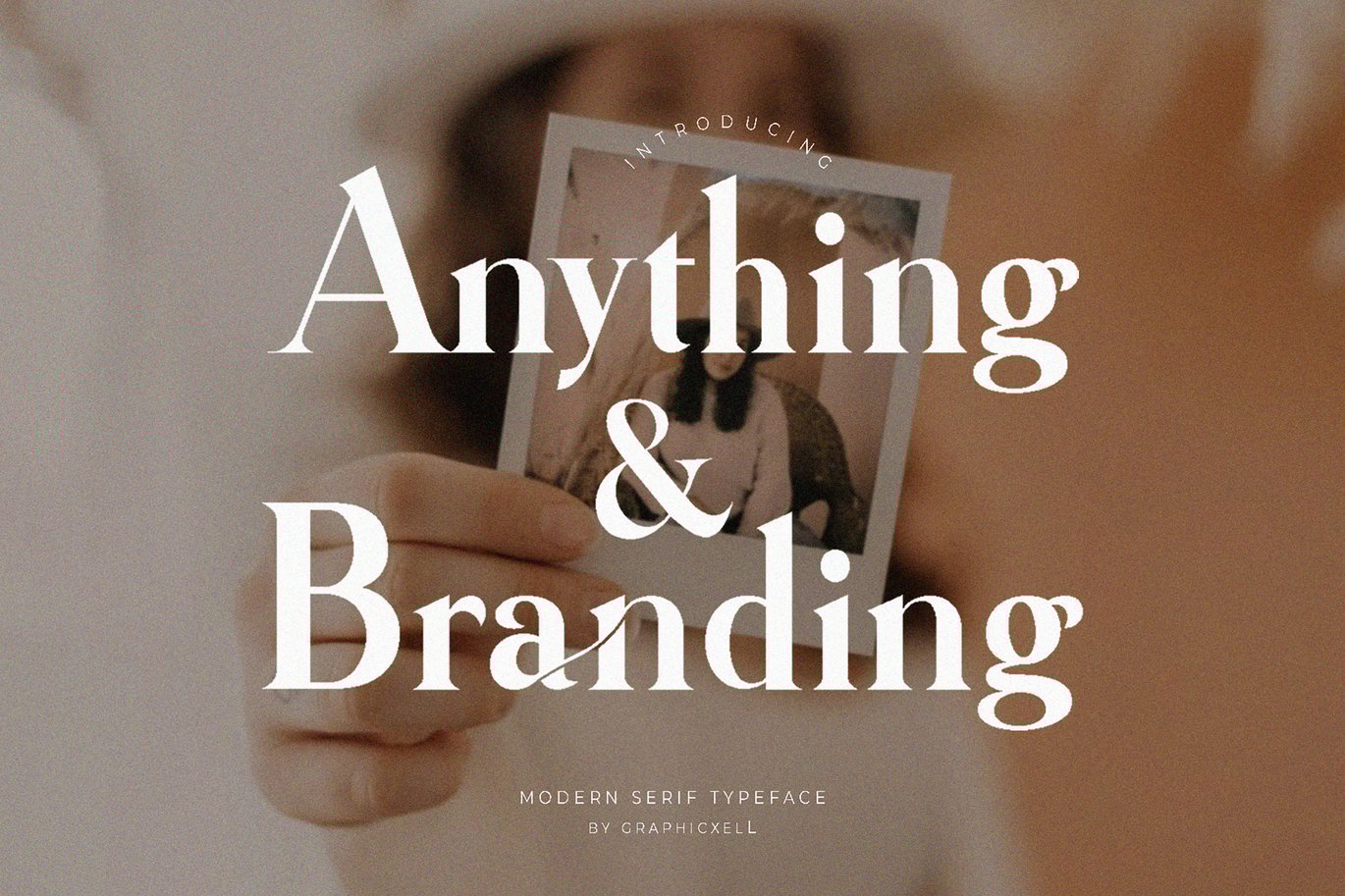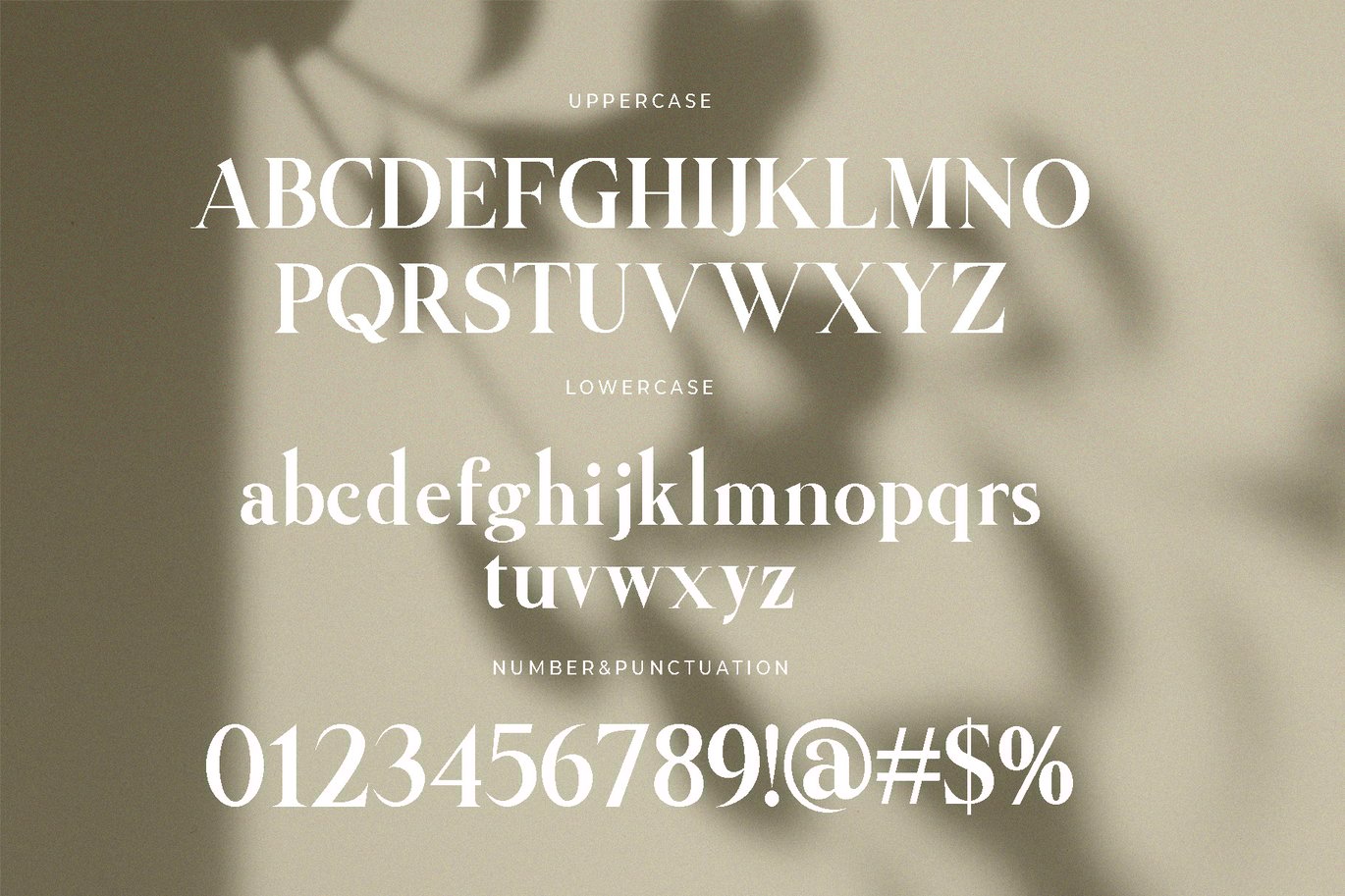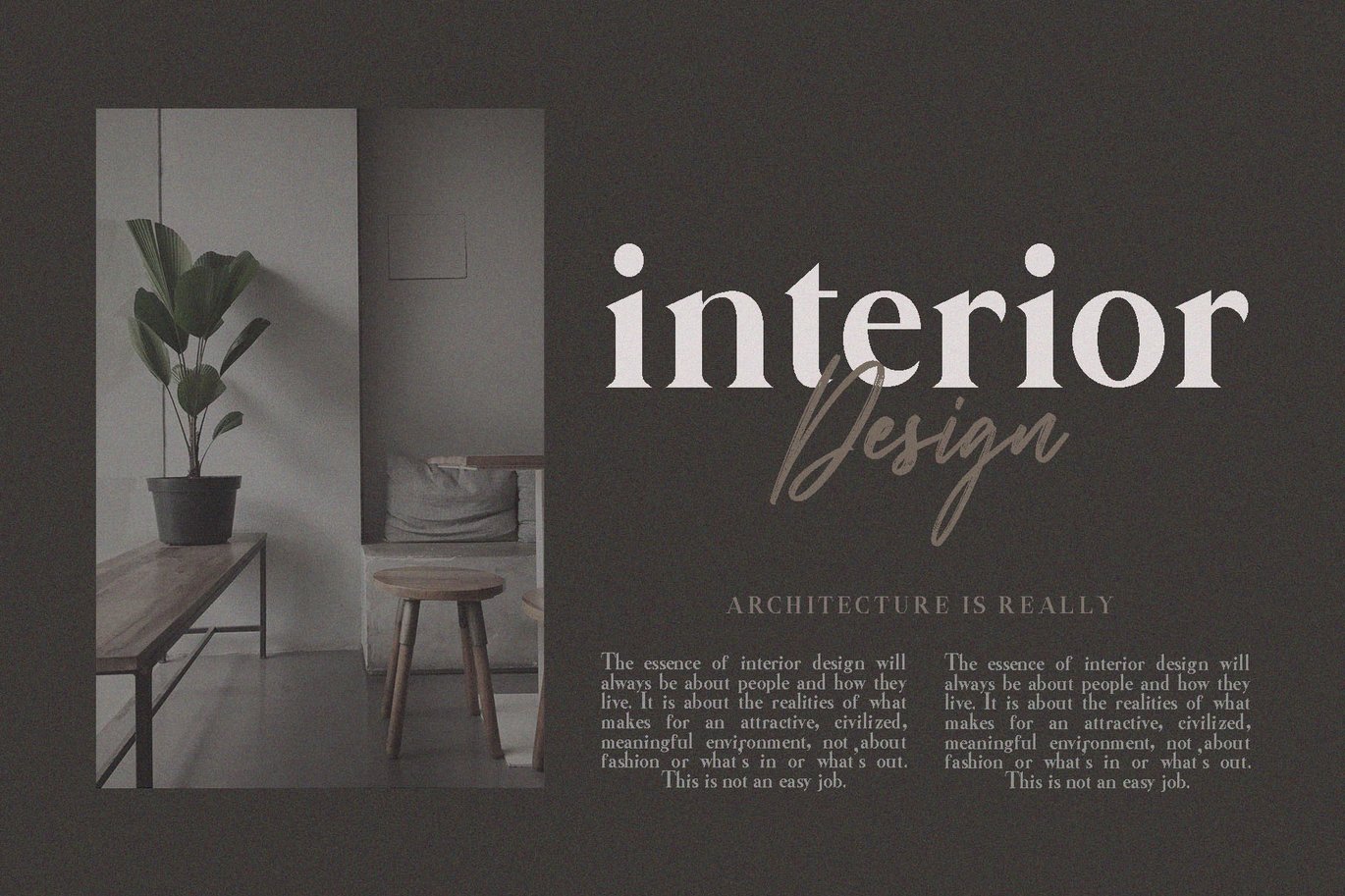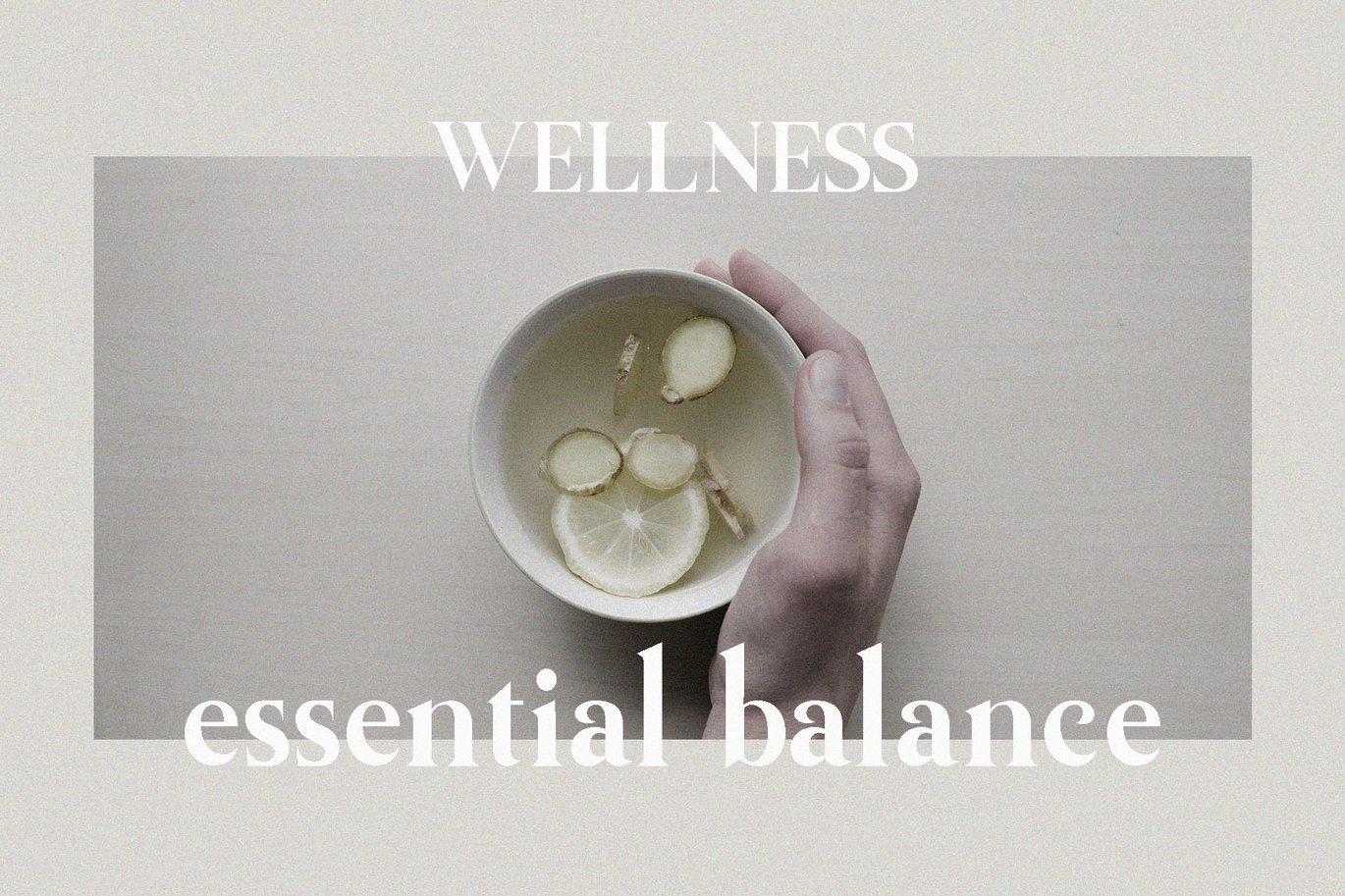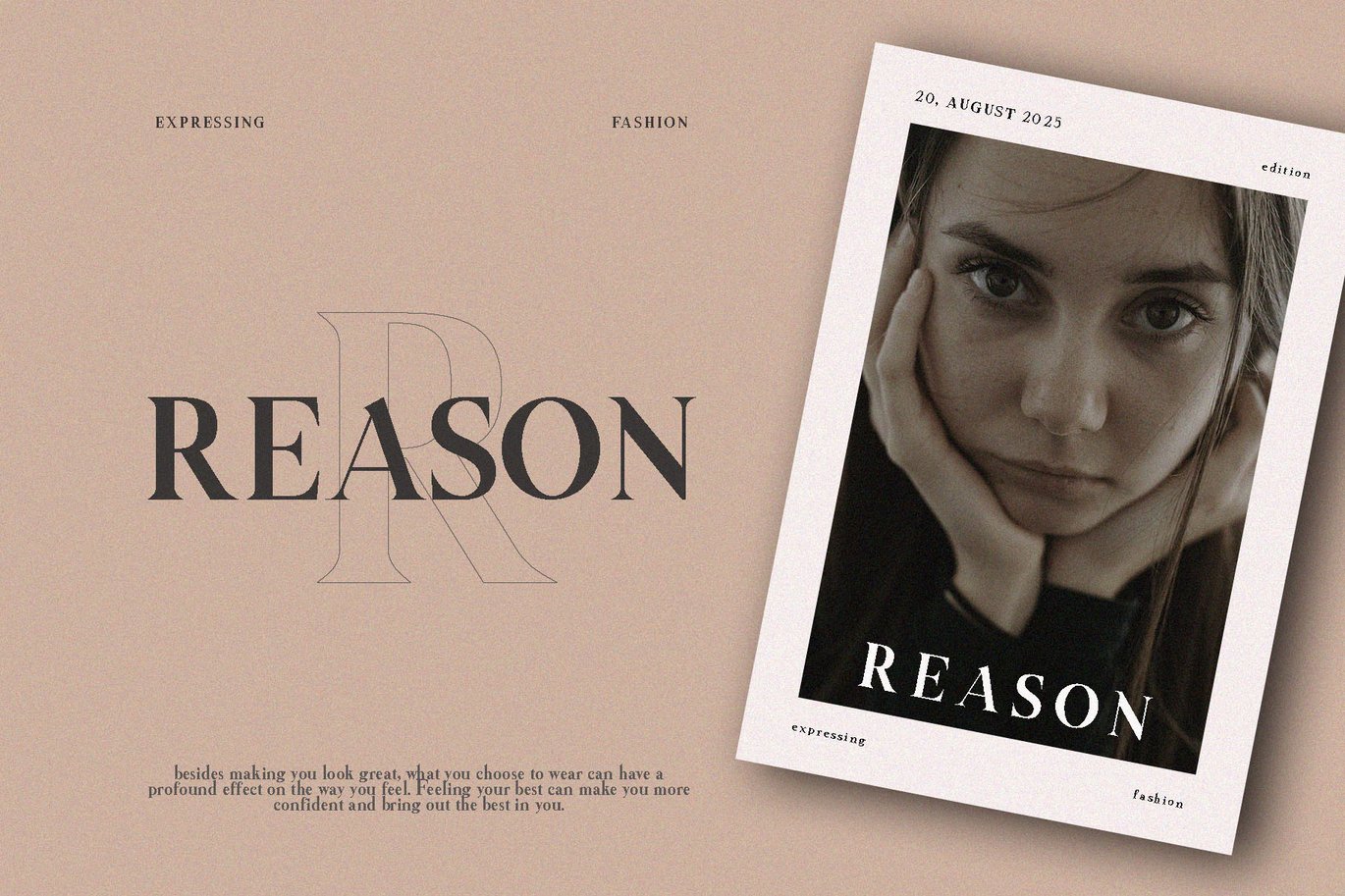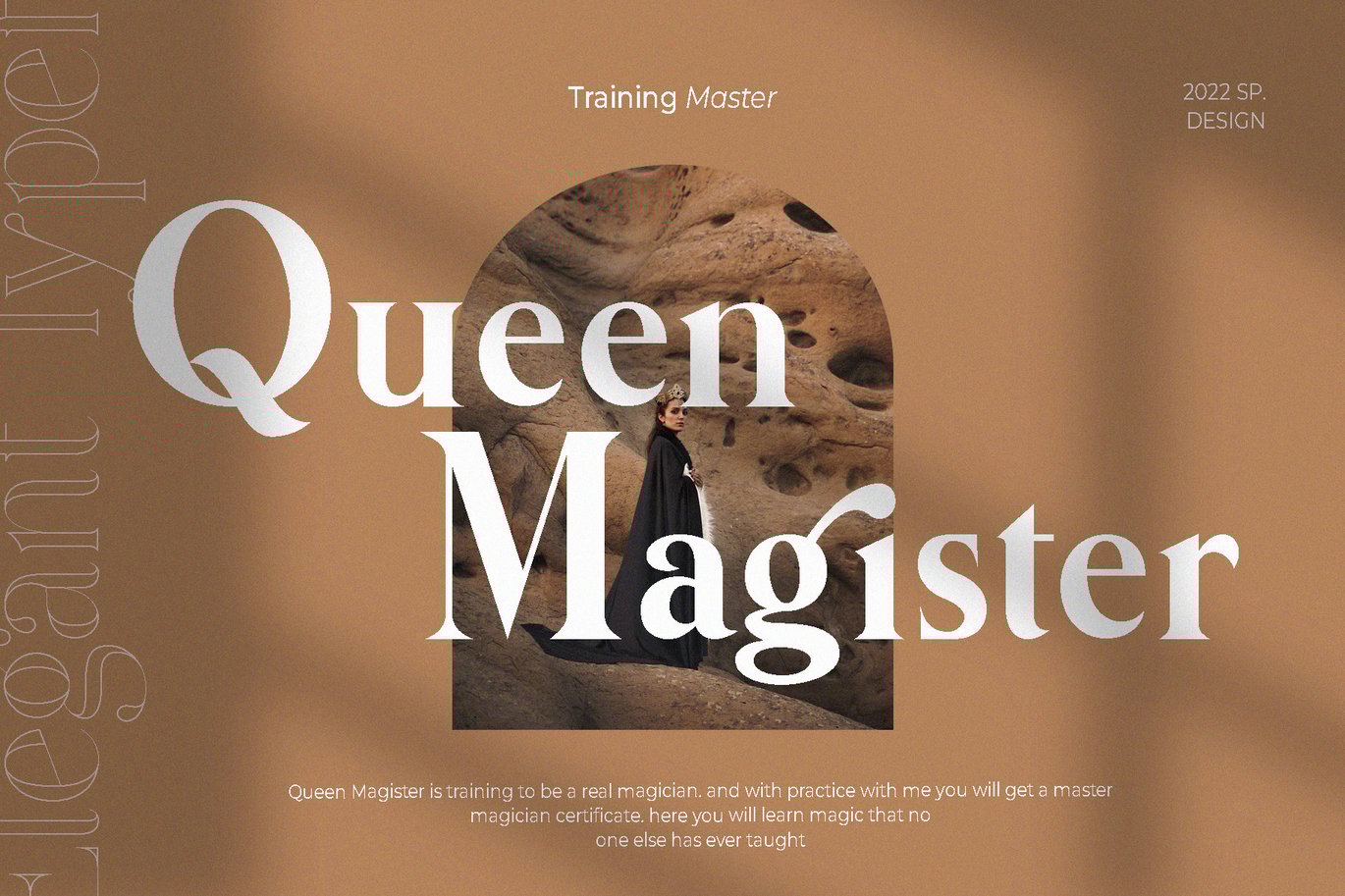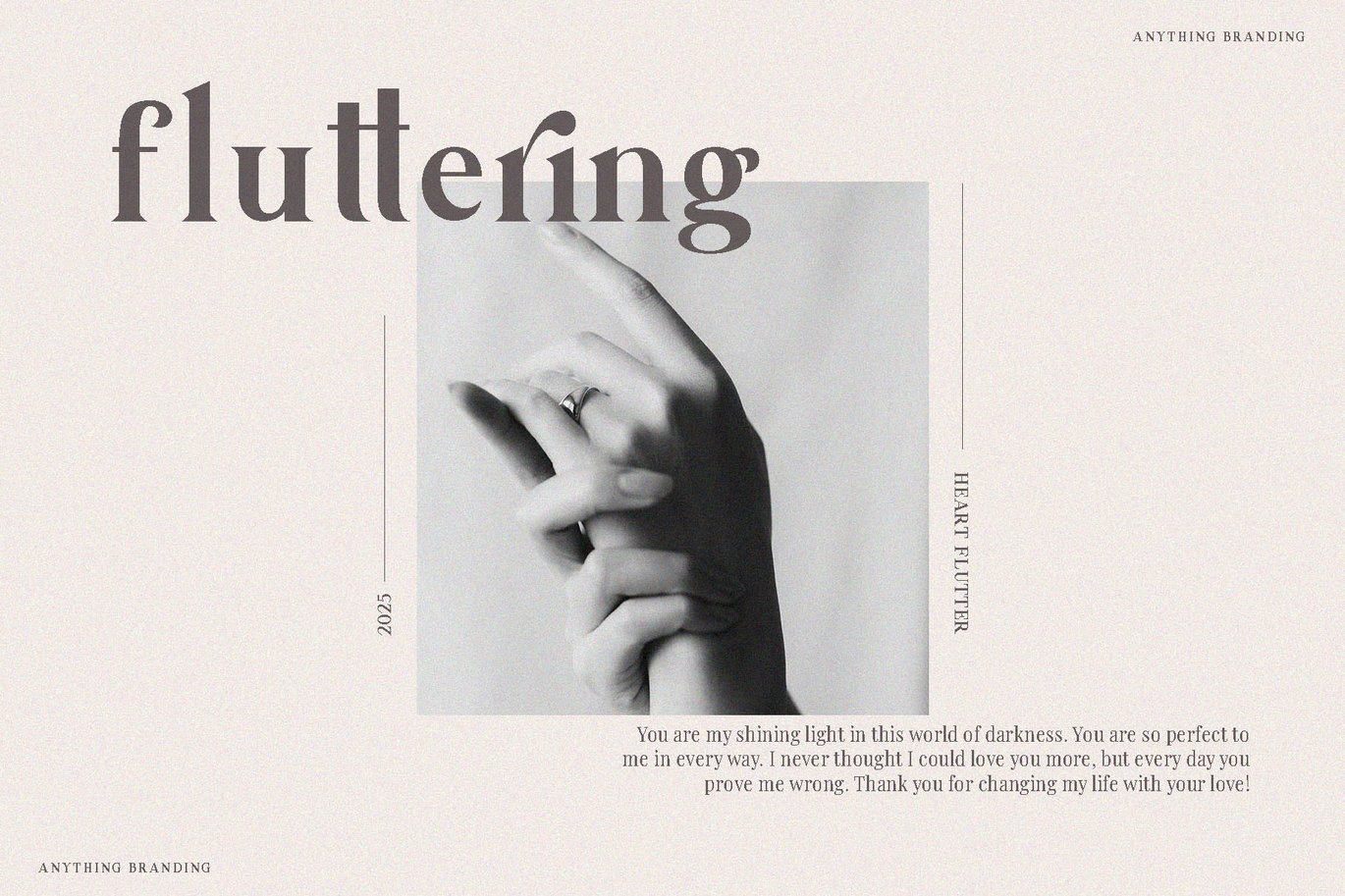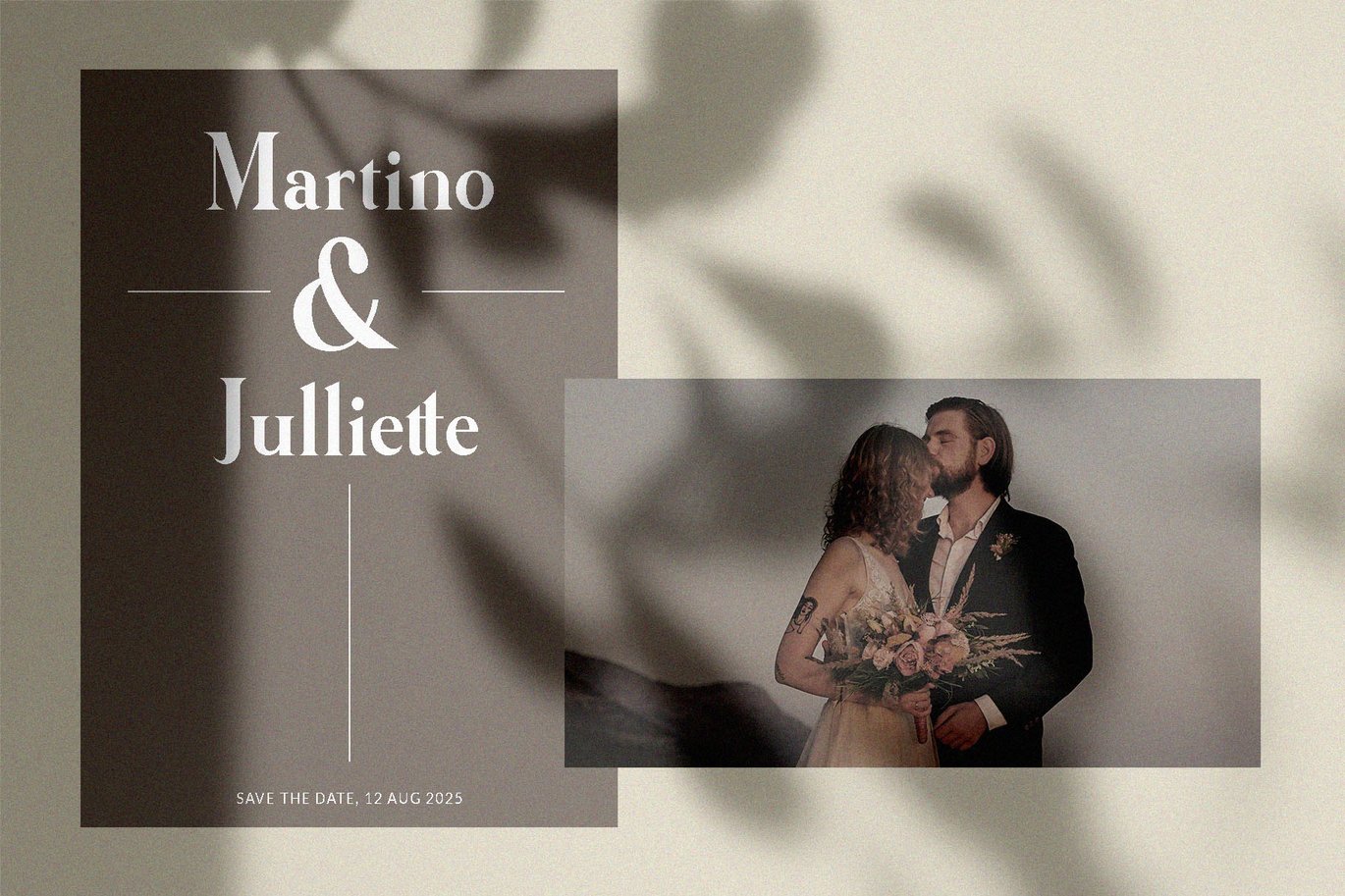
Anything Branding Serif Font
Anything Branding Serif Font inspired by the famous minimalist logo perfect for the purposes of designing templates, brochures, videos, advertising branding, logos, invitation, layout design, elegant crafting, instagram template, fashion, film cover beauty design and more.